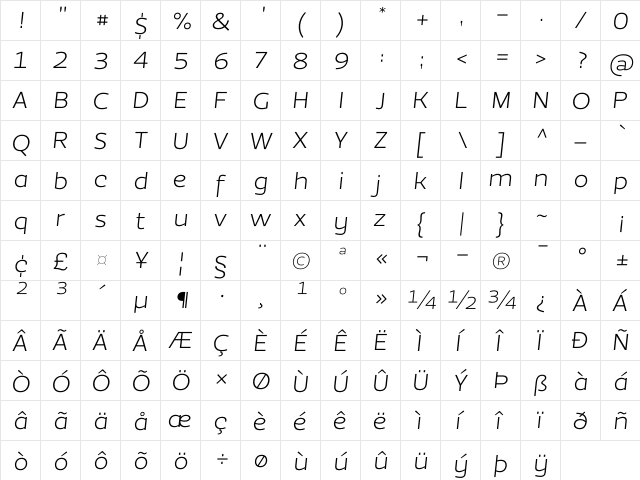
EzzoLightItalic Regular
| Foundry | Dino dos Santos _DSType |
Design Context for EzzoLightItalic Typeface
EzzoLightItalic offers clean, dependable letterforms without strong stylistic allegiance, making it a practical choice for designers who need flexibility. The dynamic lean of this cut emphasises speed and emphasis in any layout. Its slender proportions lend an understated elegance to any composition.
Pro Tip: Use EzzoLightItalic for emphasis, pull quotes, and subheadings where its slanted energy can add rhythm to the layout.